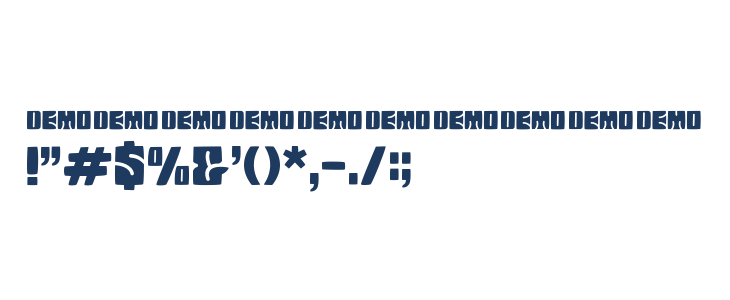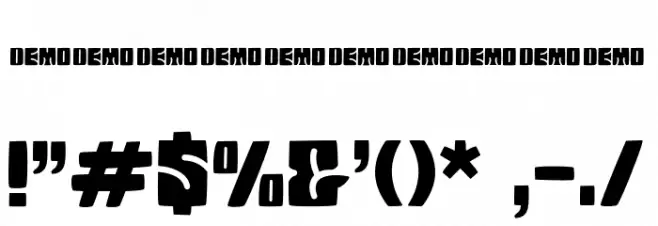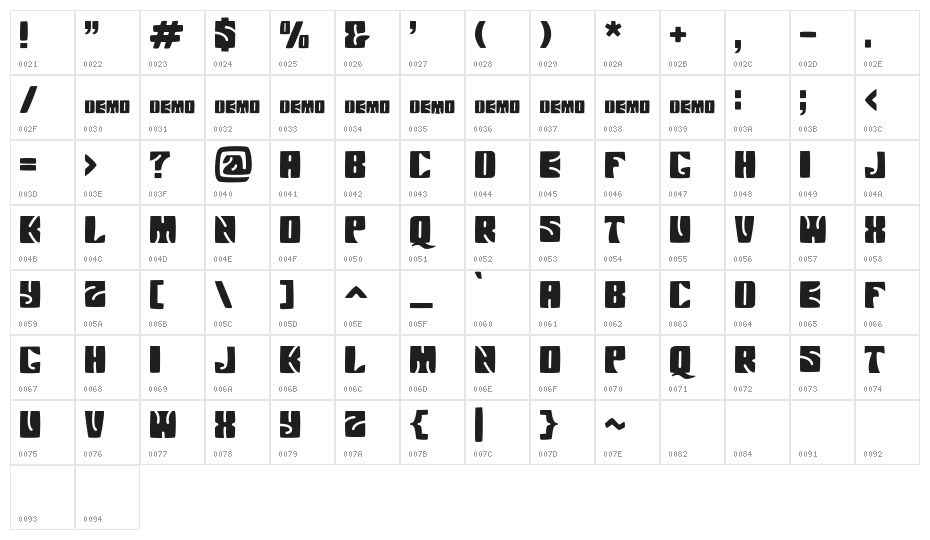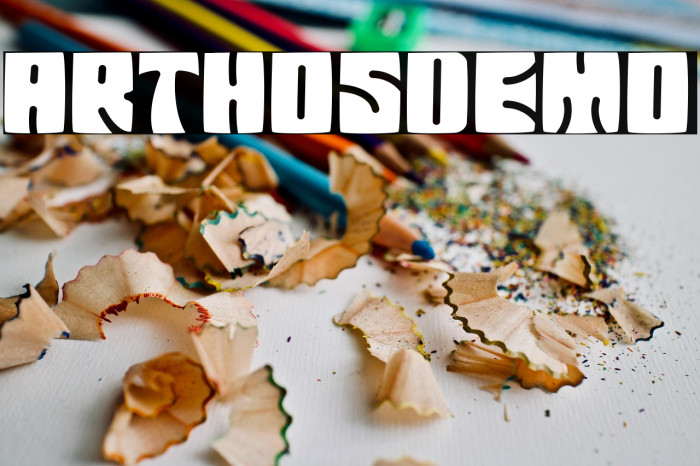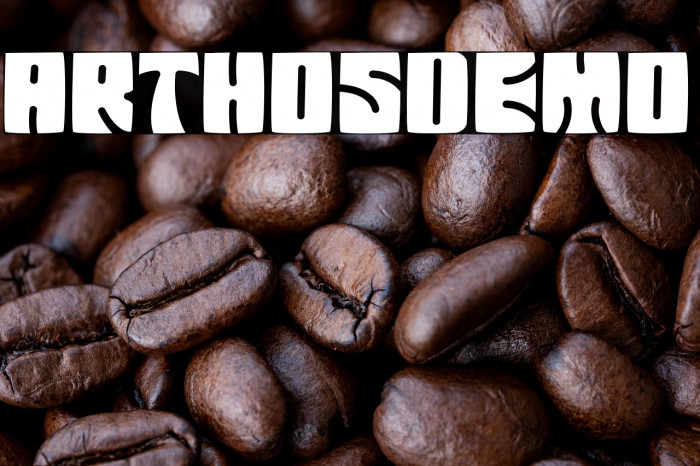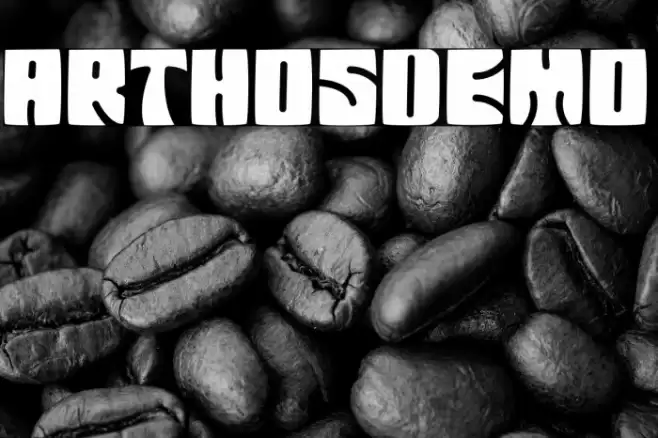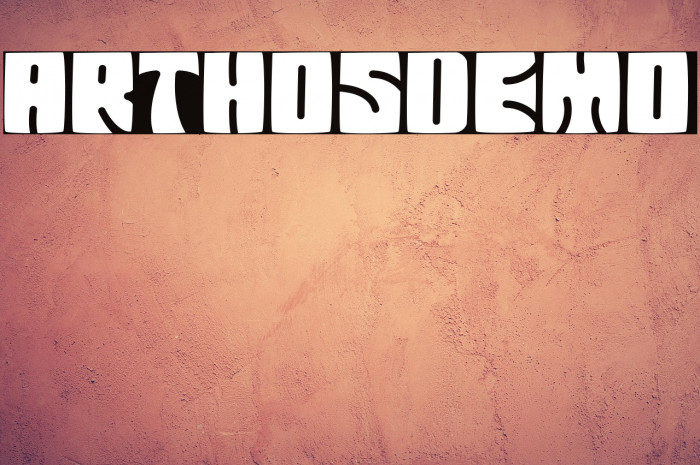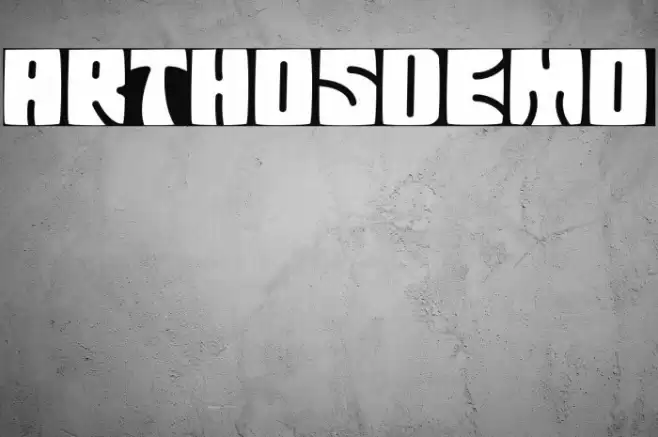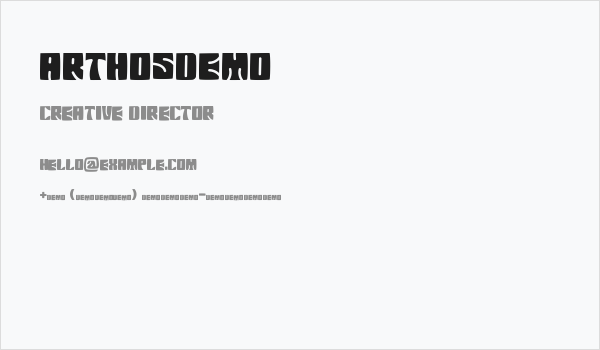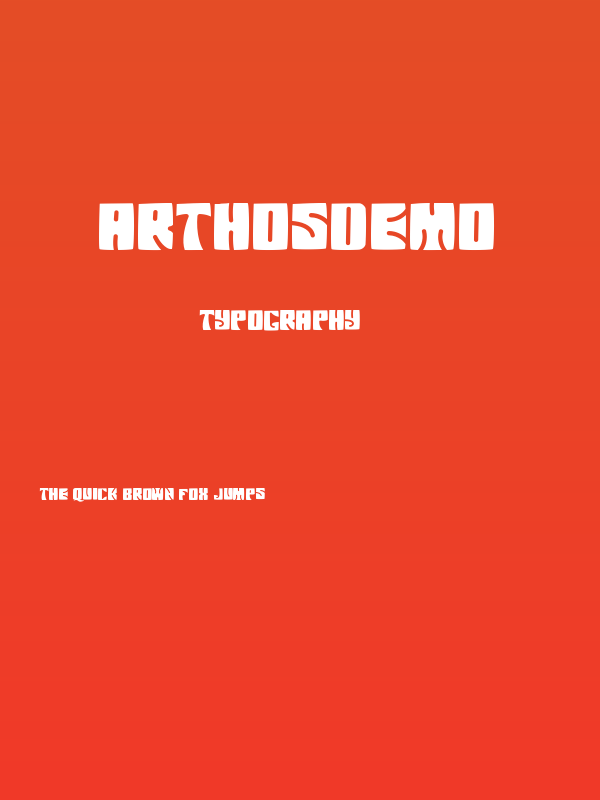
Arthosdemo Font
Arthosdemo Description
This font features a bold and striking design with a unique, artistic flair. The characters are heavily stylized with thick strokes and a playful, almost whimsical appearance. The uppercase letters have a strong presence, while the lowercase letters maintain the same boldness, creating a cohesive look. The numbers and special characters follow the same design principles, ensuring consistency across all glyphs. This font's distinctive style makes it ideal for projects that require a bold statement or a creative touch.
| Proposed Projects | This font is perfect for poster designs, album covers, branding projects, and any creative work that requires a bold and artistic touch. |